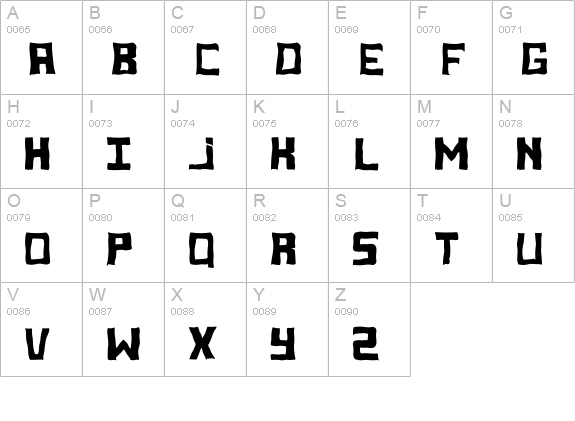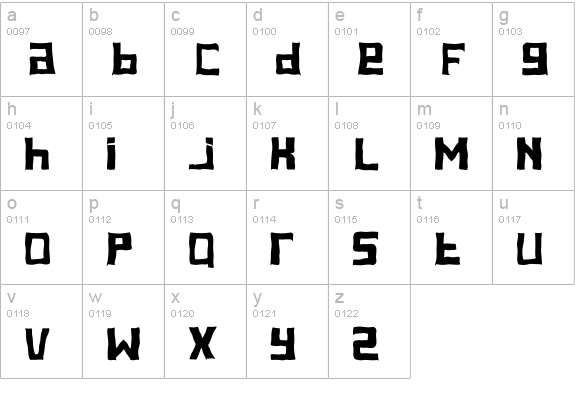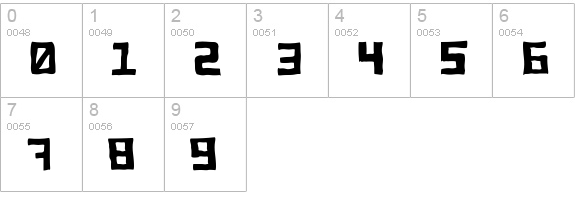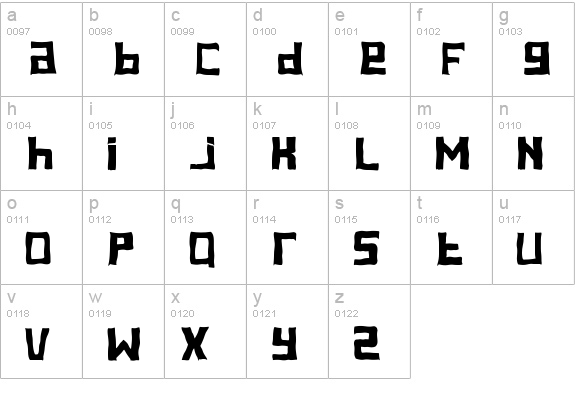
The Ghoul font is a spooky and eerie typeface designed to add a haunting touch to your designs. With its jagged edges and creepy aesthetic, Ghoul is perfect for Halloween-themed projects, horror movie posters, and any design that needs a touch of darkness. This unique font is free to download at FontsMarket.com, making it accessible to all designers looking to add a macabre flair to their work. Let Ghoul font unleash your creative demons and bring your designs to life with a hint of the supernatural. Download it today and add a touch of fright to your projects!